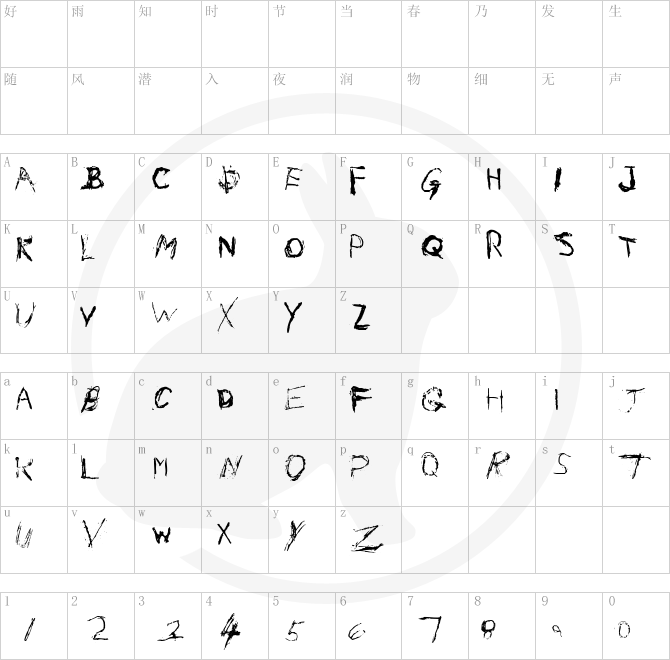
- Font Name:Nail Scratch
- Subfamily:EduardoRecife,[MisprintedType]: Nail Scratch: 2001
Nail-Scratch-copy-2-.ttf is a very beautiful artistic font, Nail-Scratch-copy-2-.ttf is widely used in the design and printing of various books and pictures,Nail-Scratch-copy-2-.ttf has a strong visual impact,Nail-Scratch-copy-2-.ttf is a commonly used font in newspapers, magazines and books, and is used in posters, e-commerce Poster design, store design, logo design, font design and other fields.Nail-Scratch-copy-2-.